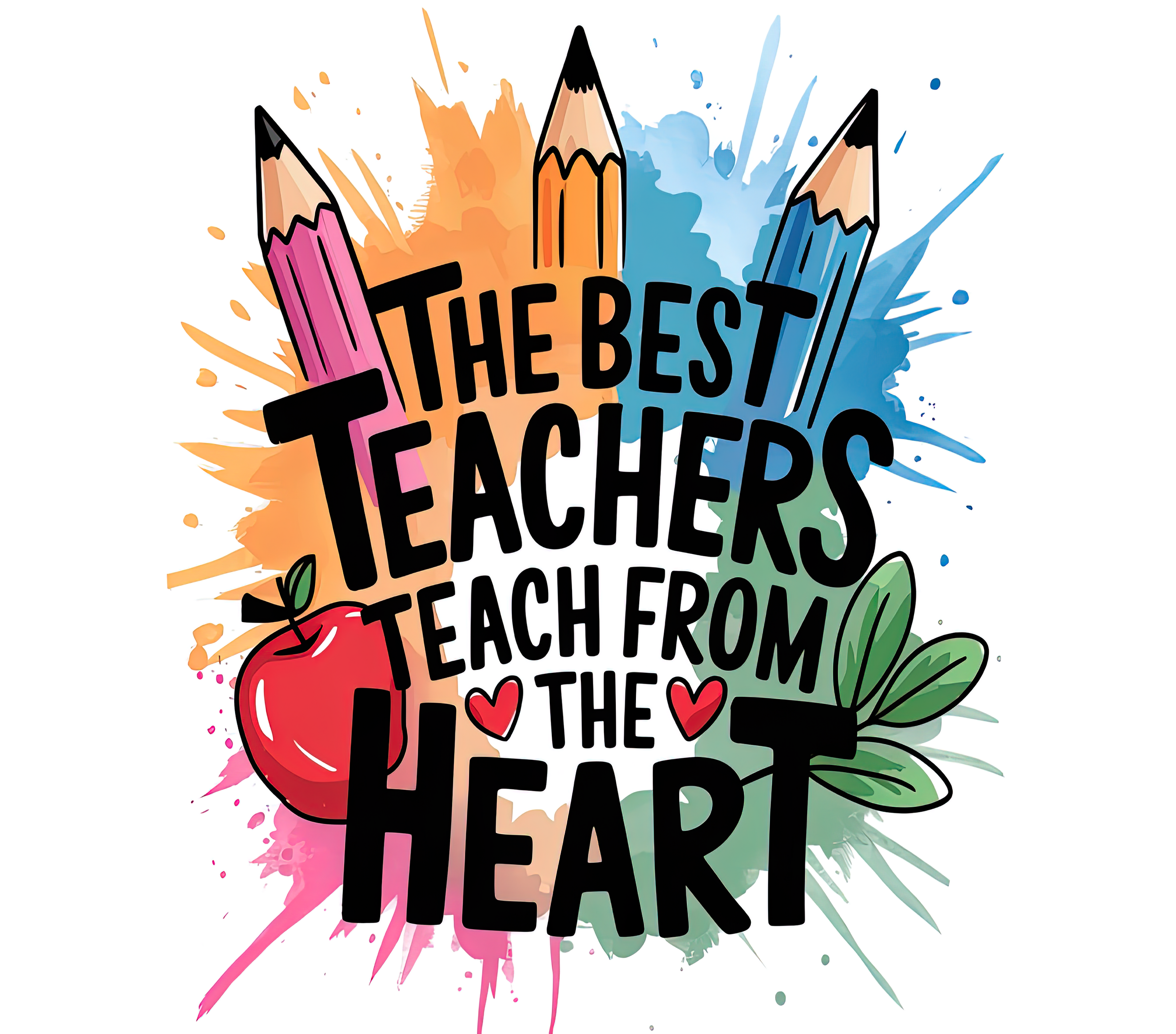
Font found on a tumbler
19 hours ago, Ralf Herrmann said:
Looks like lettering (or AI?). None of the repeating letters look identical as would be expected in a typeface.